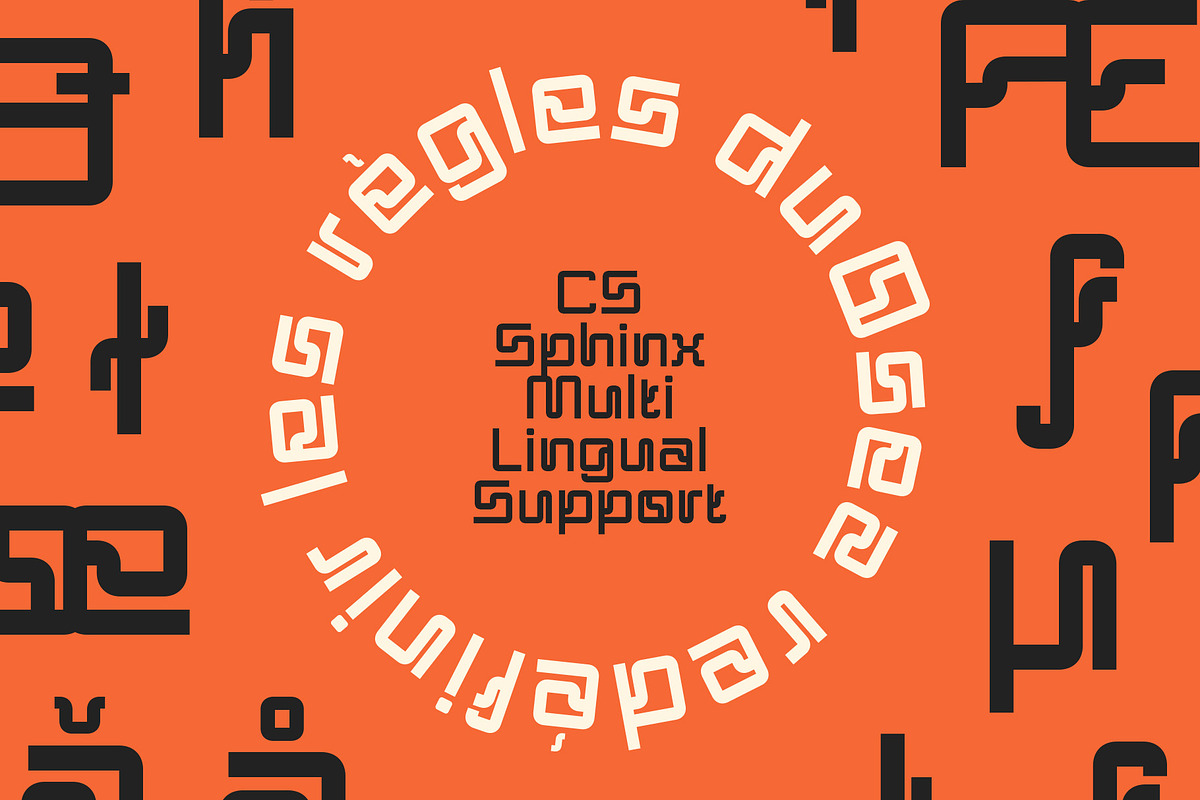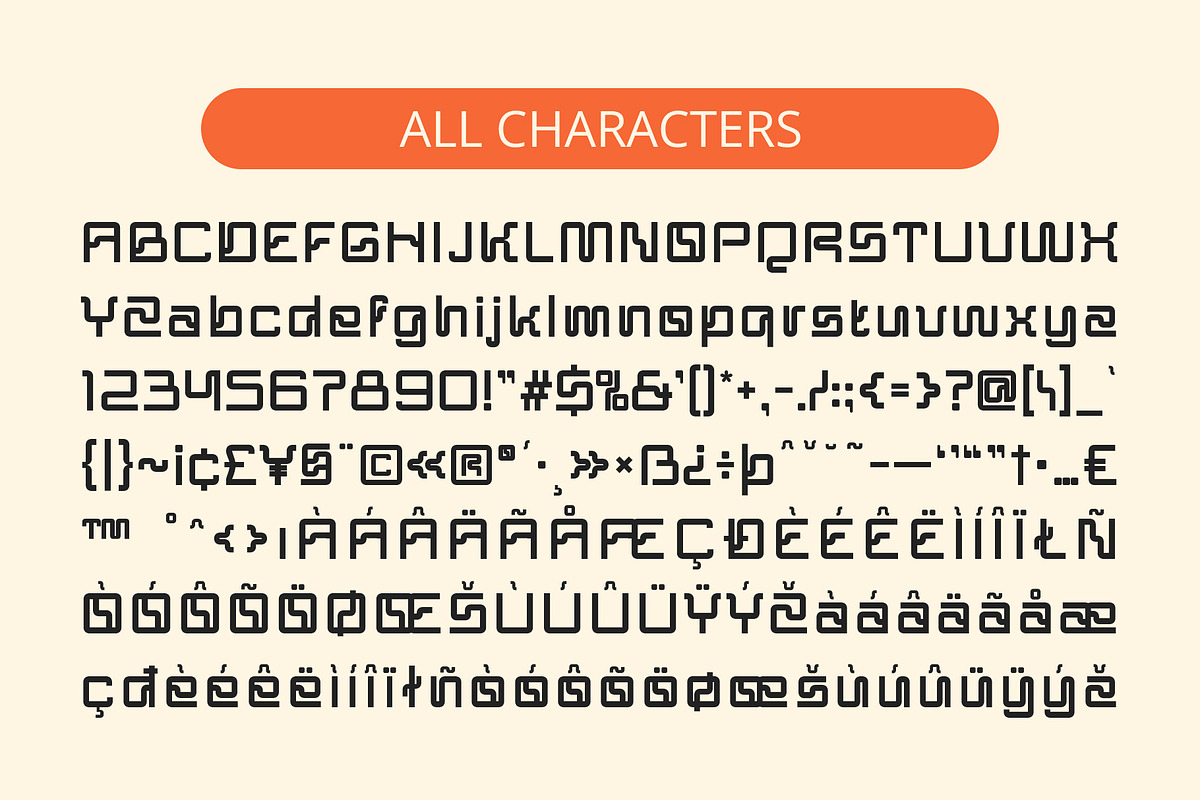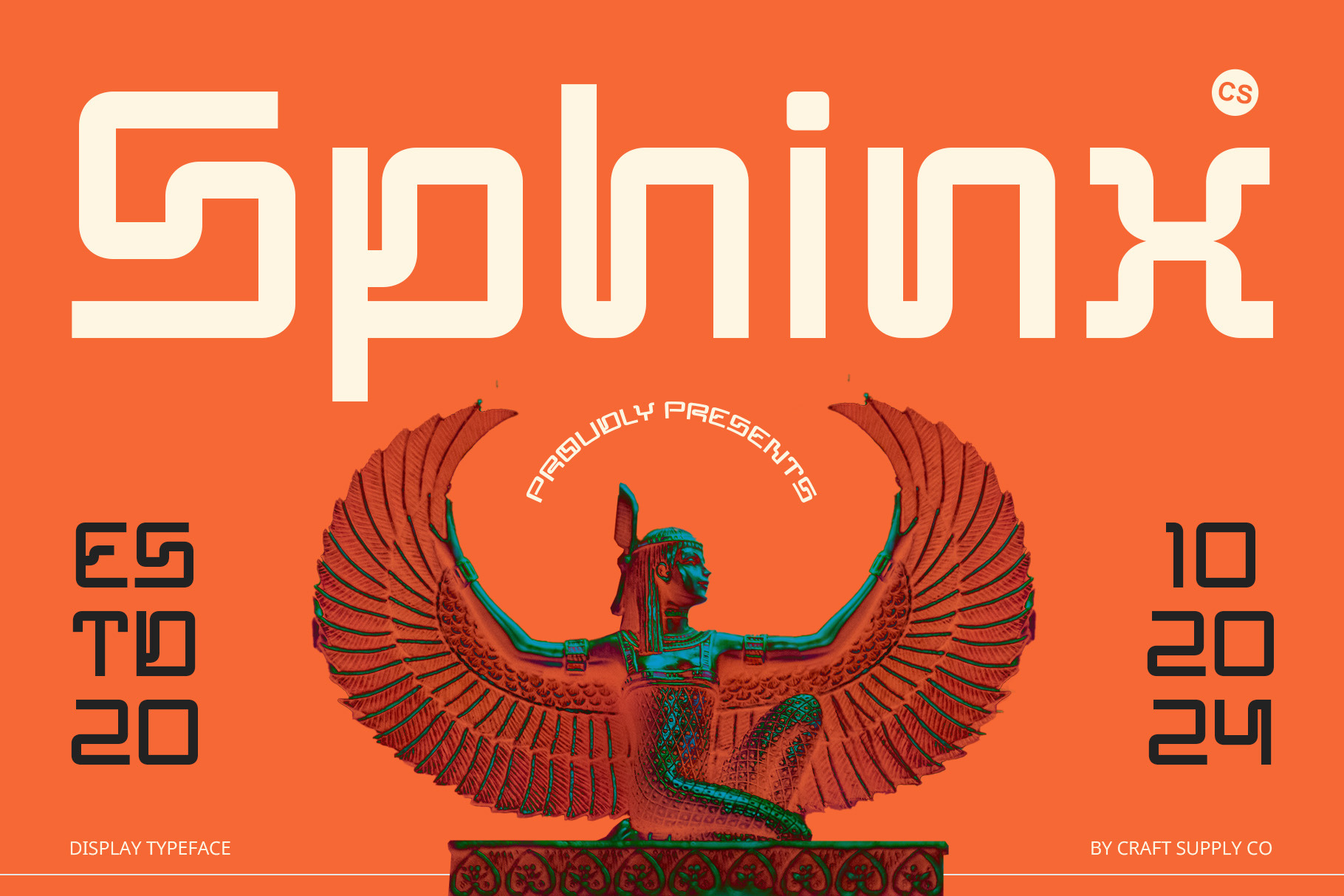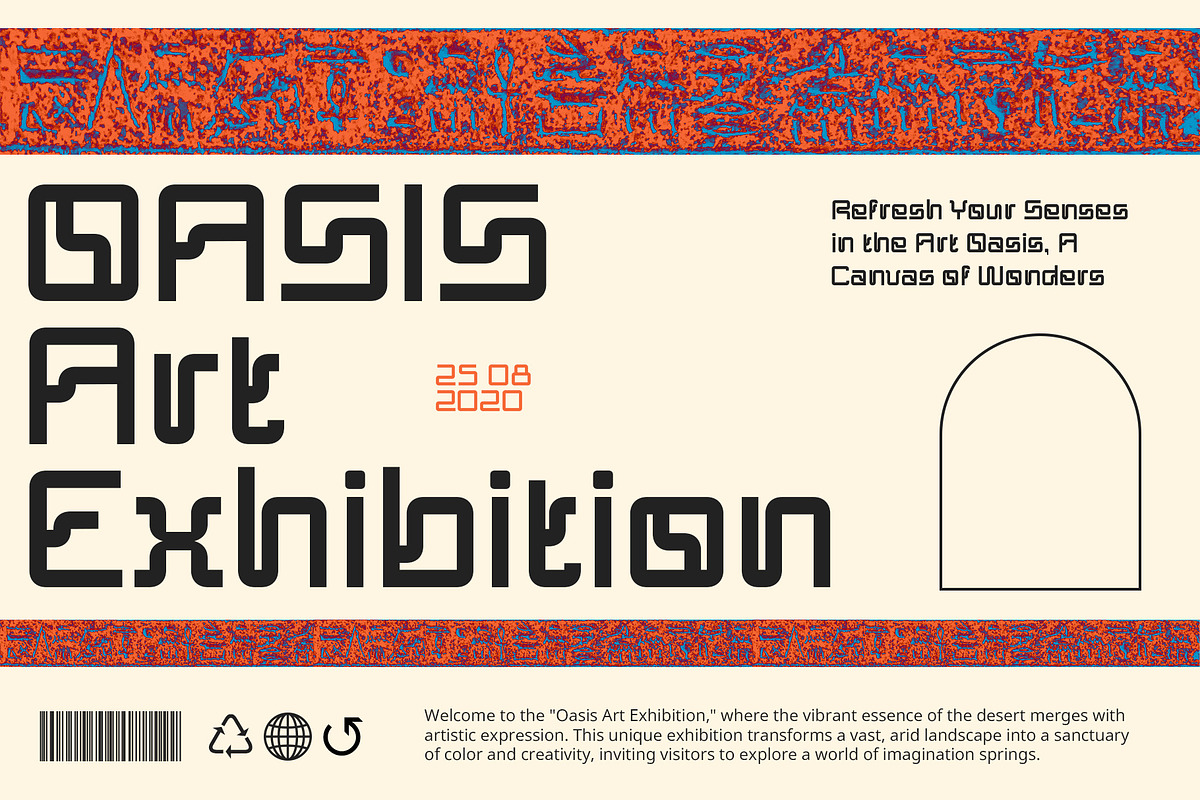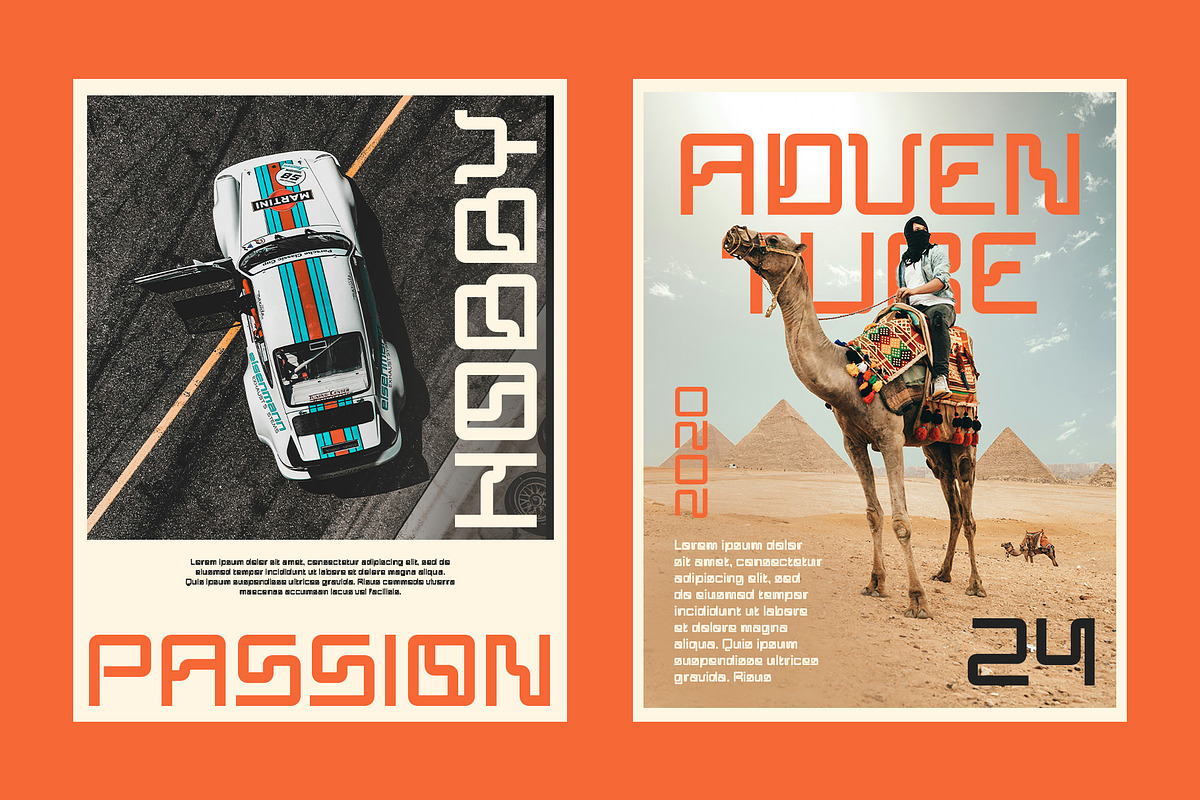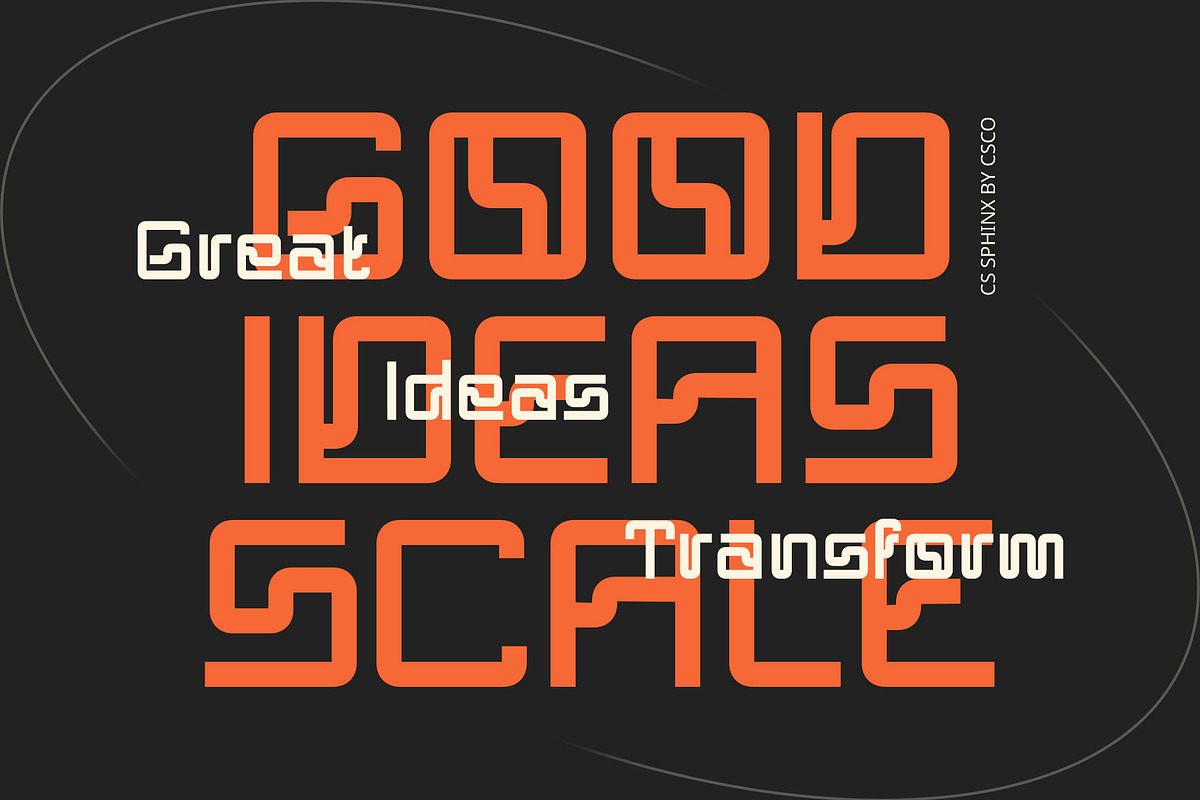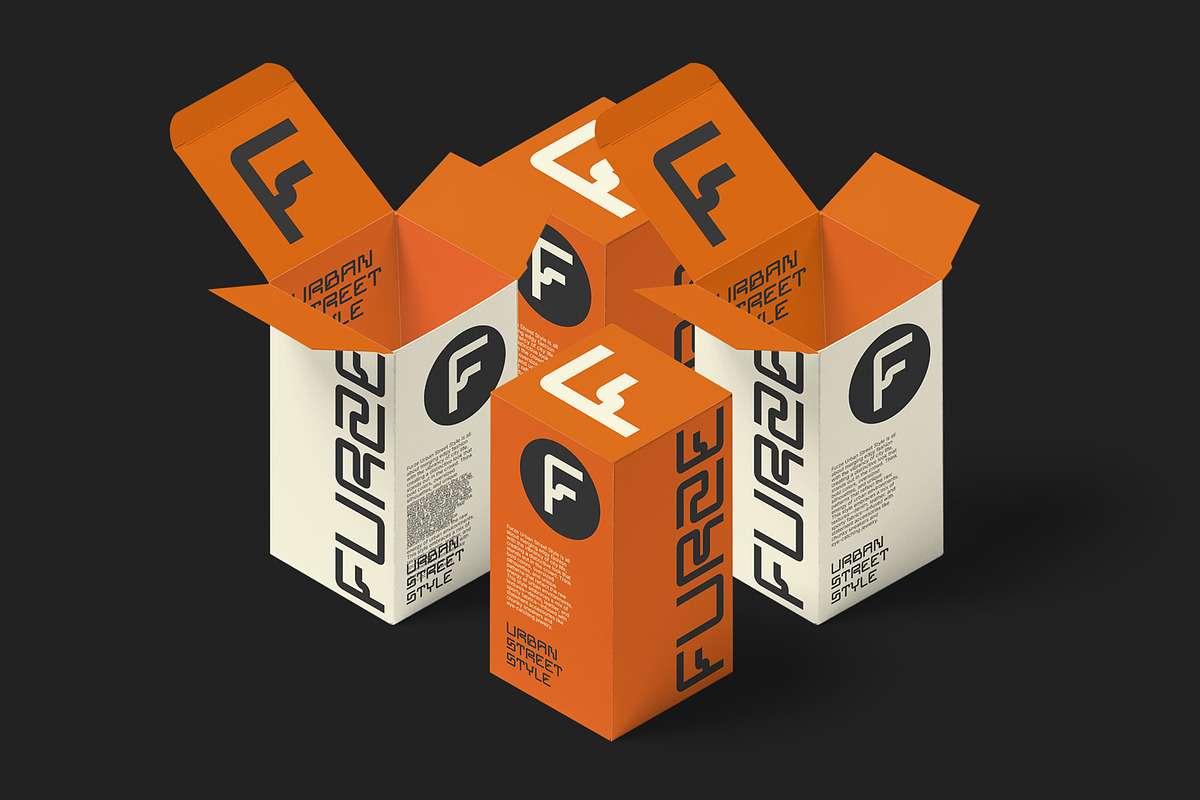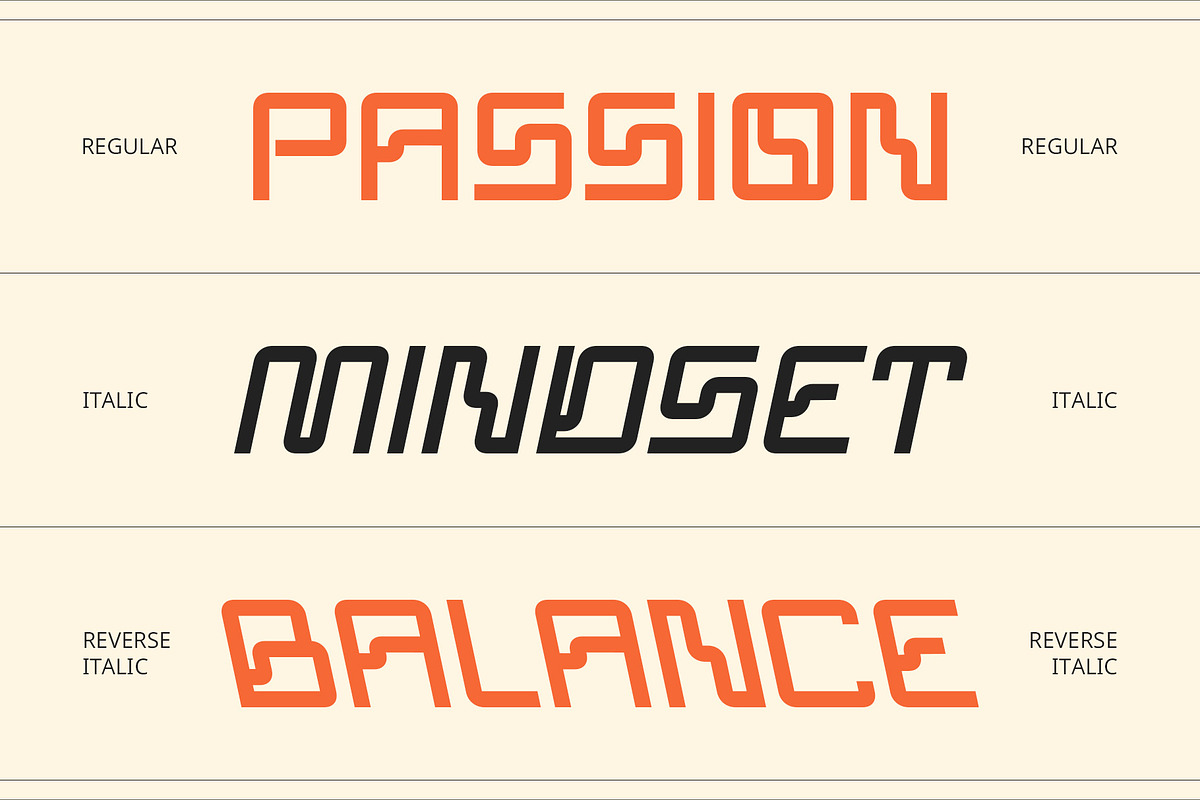
CS Sphinx – Futuristic Font
CS Sphinx – A Futuristic Font
Bold Design with Cyberpunk Aesthetics CS Sphinx is a modern display font that encapsulates the essence of cyberpunk and futuristic design, making it a standout choice for contemporary projects. With its bold and innovative character set, this font draws inspiration from technology aesthetics and the digital realm. Its sharp lines and geometric shapes create a striking visual language, establishing a strong futuristic impression that captivates viewers.
Intricate Design and Neon Vibe The intricately designed characters of CS Sphinx feature dynamic visual elements that evoke a neon vibe, enhancing the font’s modern appeal. Each letterform is crafted to produce a sense of depth and movement, making it ideal for applications that require a cutting-edge look. The combination of sleek lines and bold forms ensures that this font grabs attention, making it perfect for a wide range of creative projects.
Versatile Applications in Technology and Sci-Fi Themes CS Sphinx shines in contexts focused on technology themes, sci-fi films, and branding that aims to convey innovation and modernity. Whether used in promotional materials, product packaging, or digital designs, this font delivers a strong avant-garde impression that aligns with contemporary trends. Its versatility makes it suitable for both headlines and body text, allowing for cohesive design solutions.
- CS Sphinx Regular
- CS Sphinx Italic
- CS Sphinx Reverse Italic